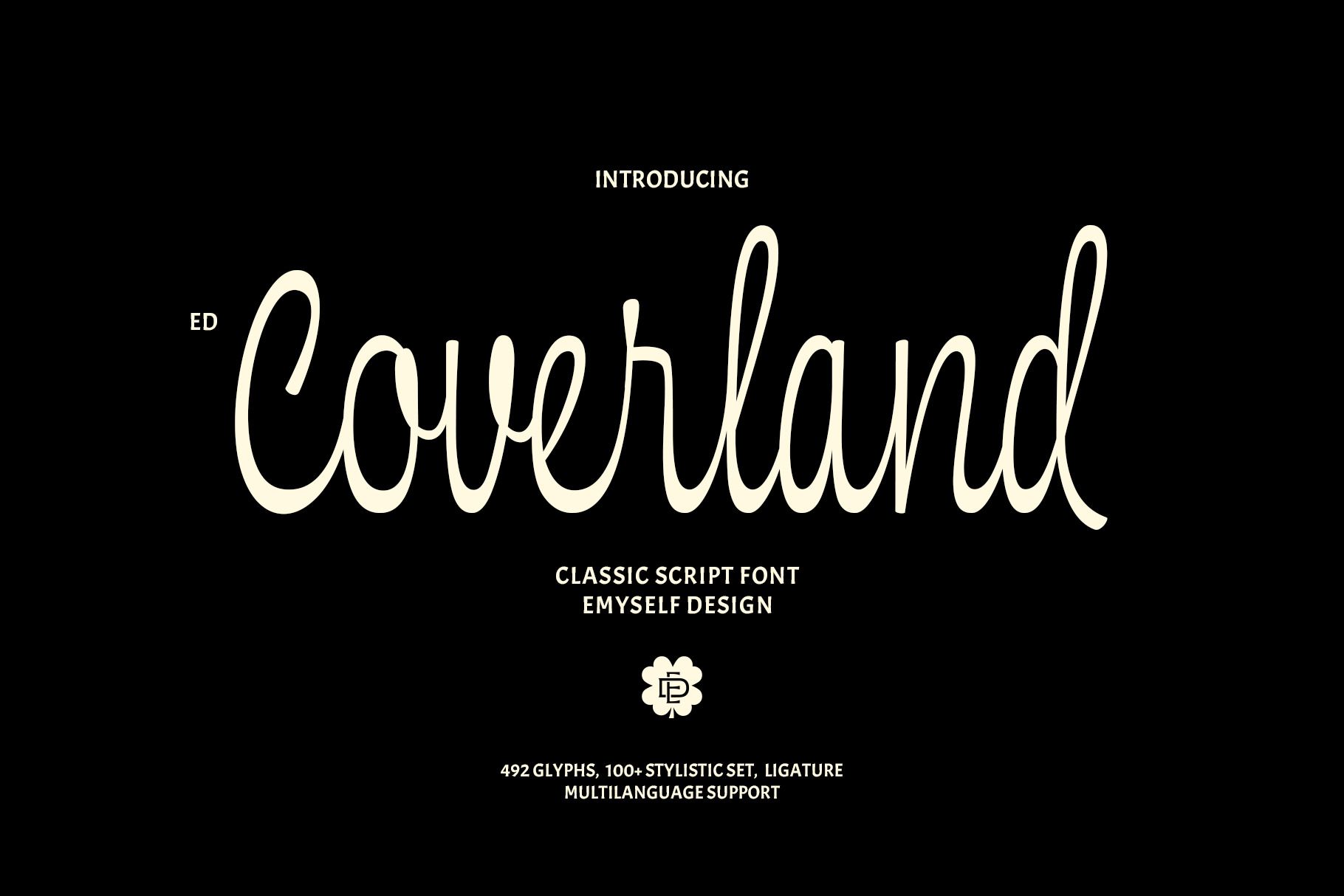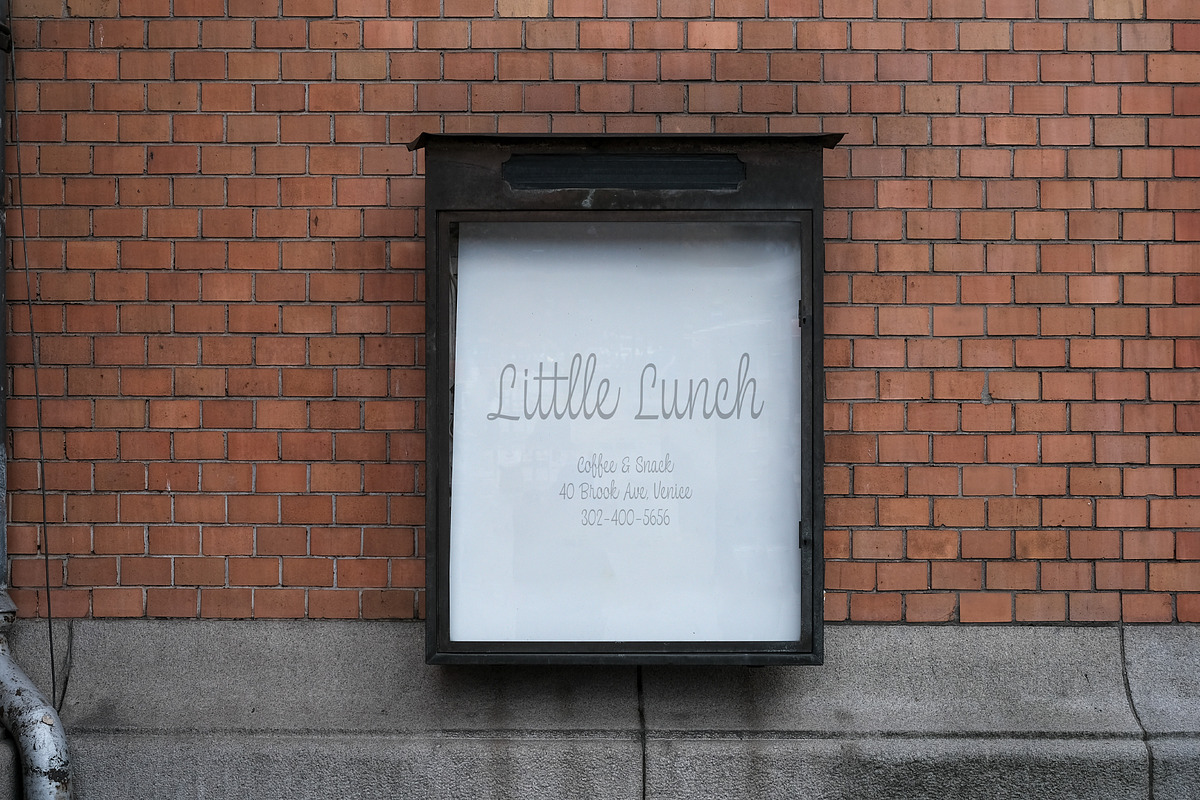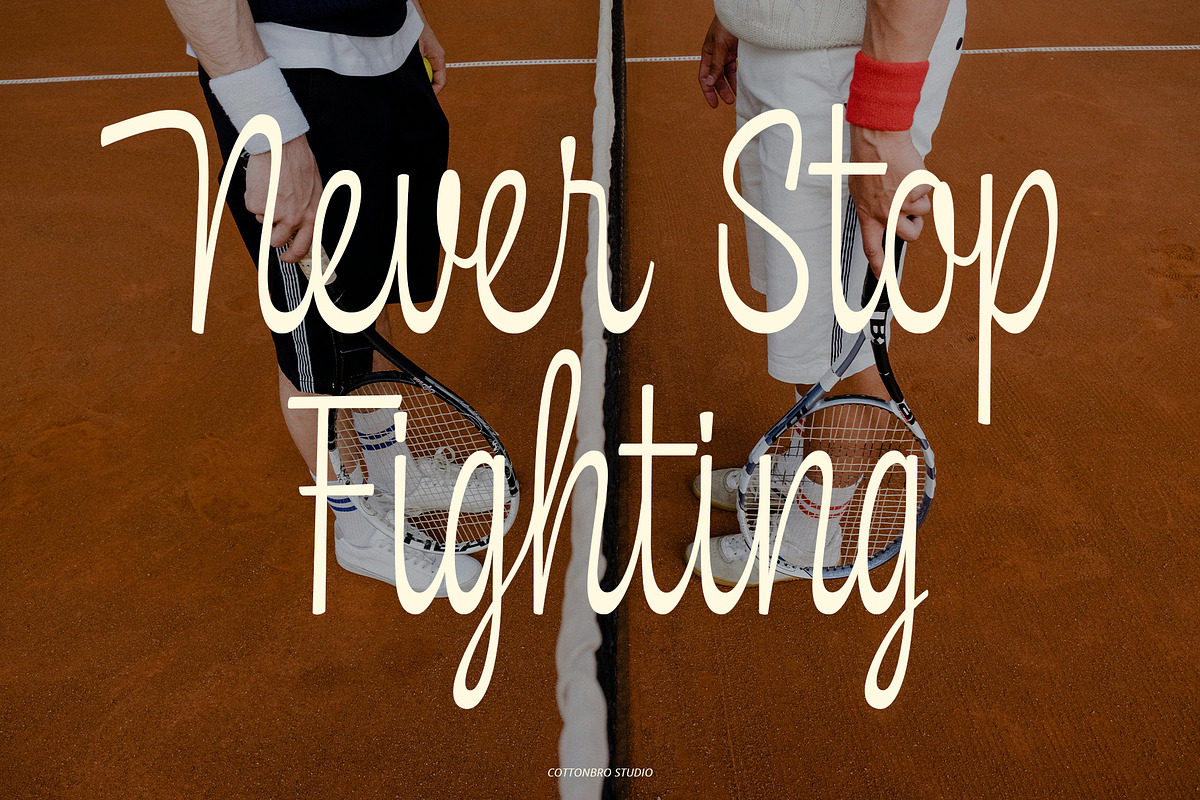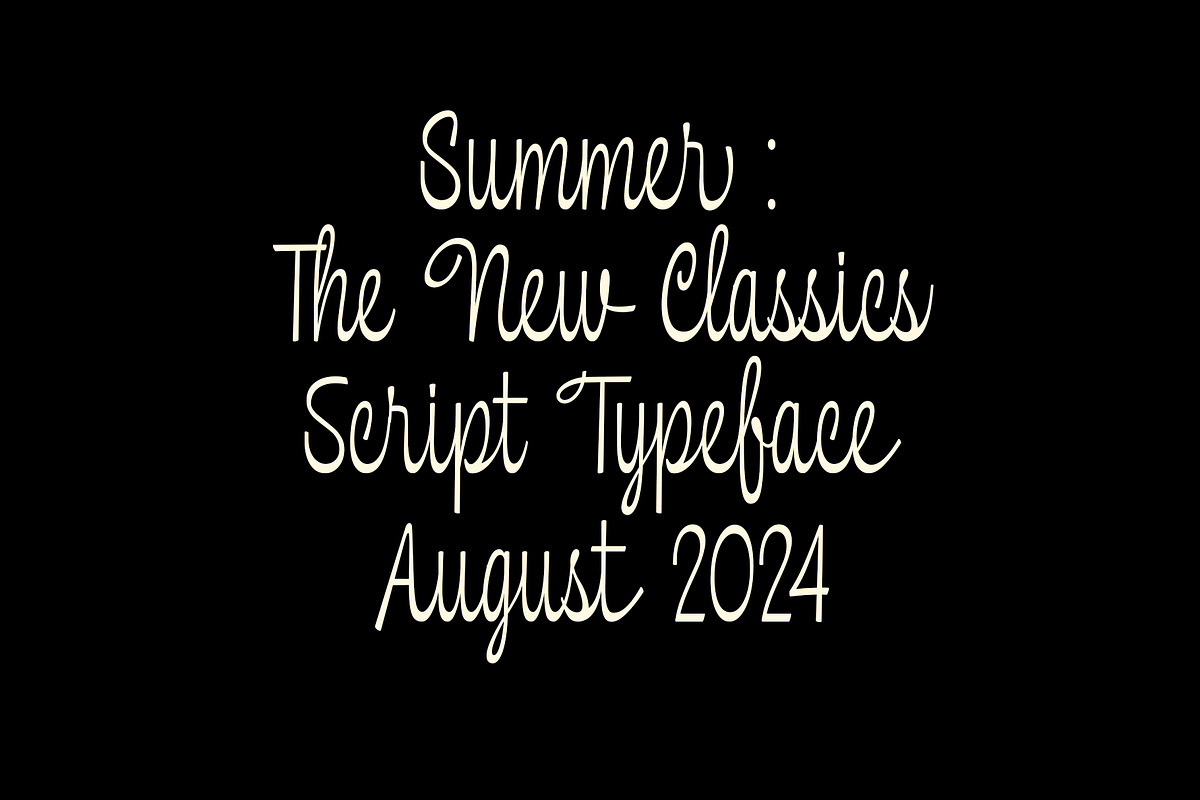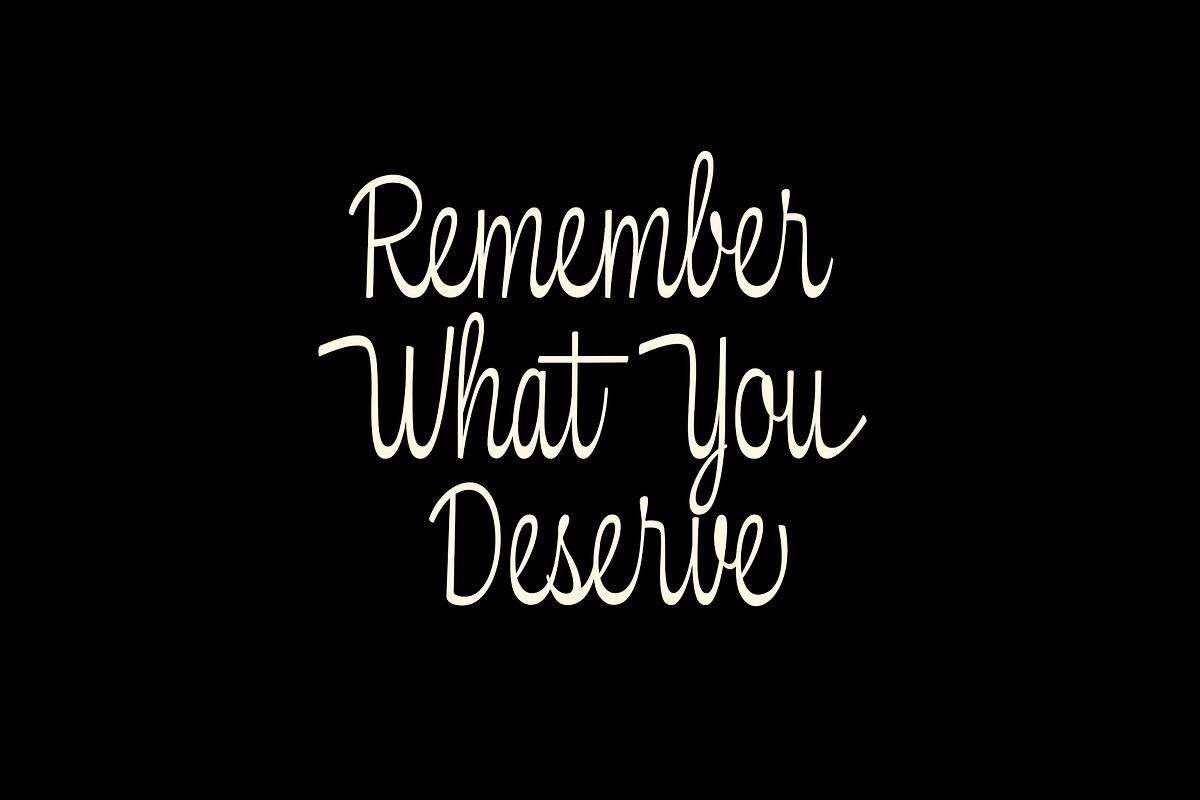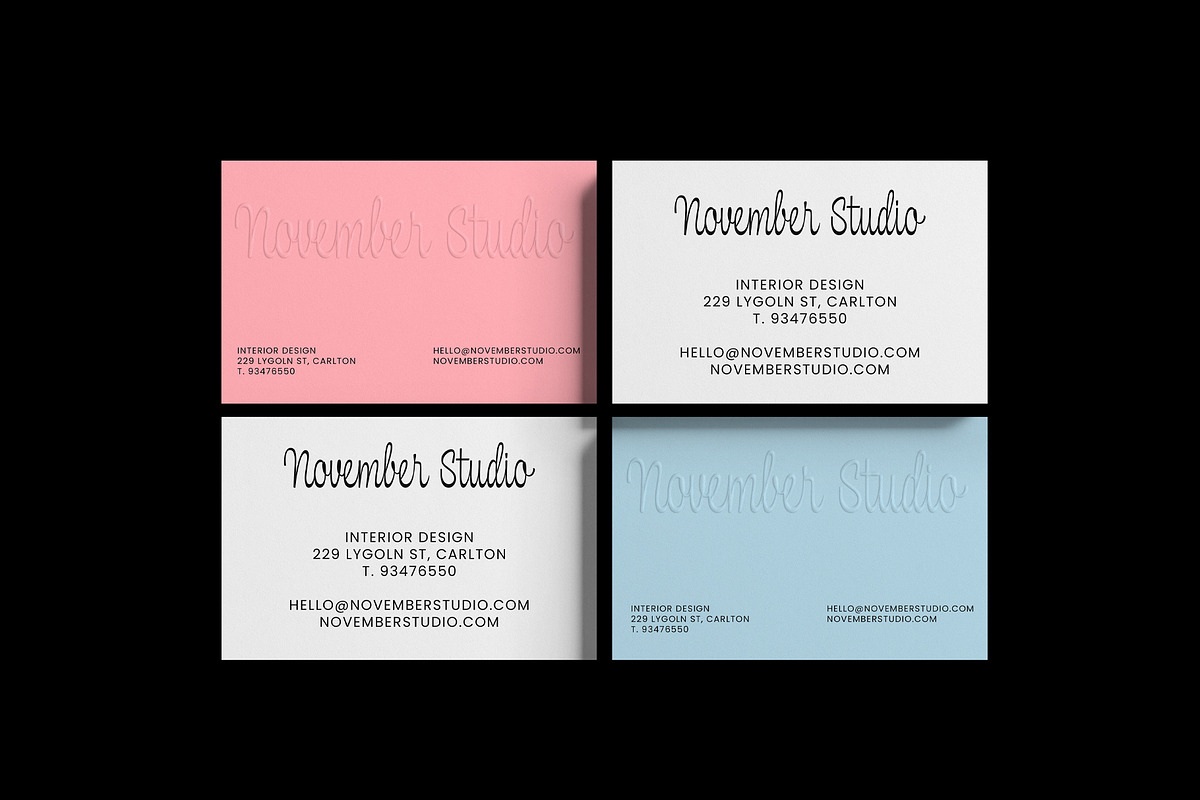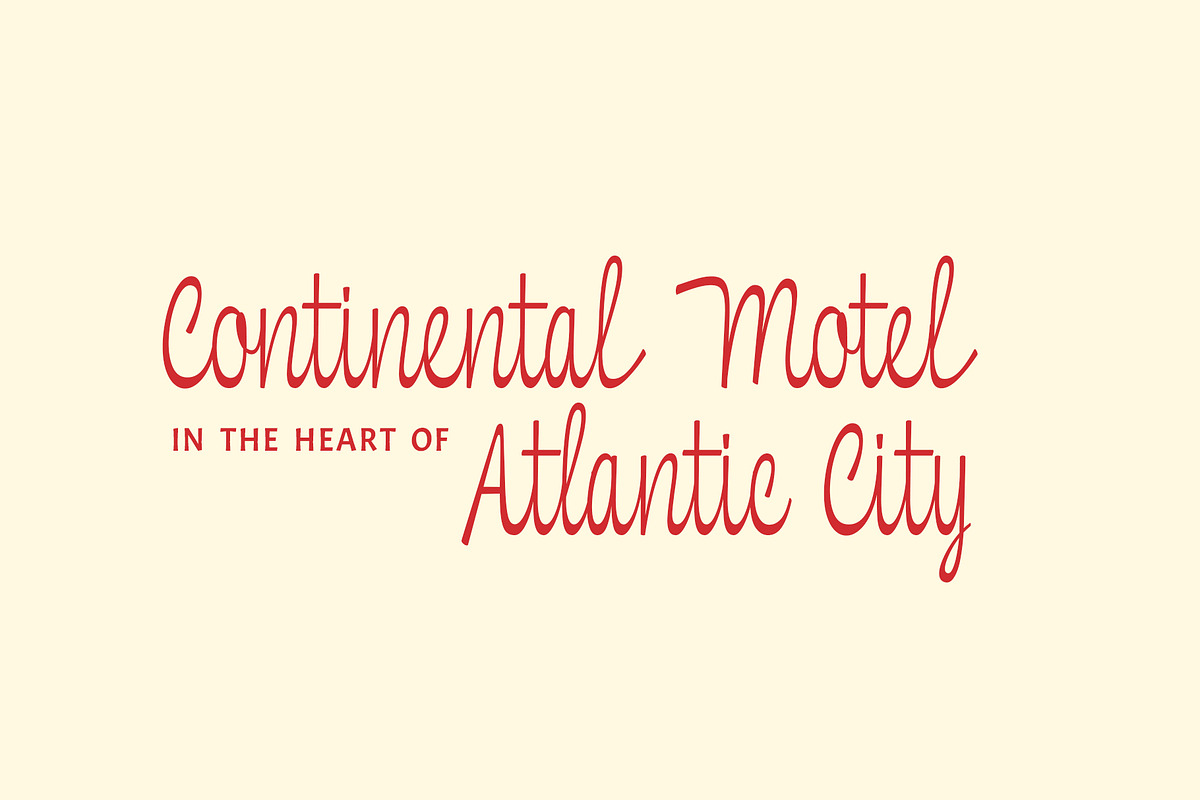
ED Coverland - Classic Script Font
Coverland is a classic and elegant script font inspired by several vintage car logotypes, especially "Chevelle". In its creation, this font is designed to be more modern and clean. but still maintains its classic and elegant impression so that it is easy to combine and use in various types of design needs.
This font is complete with 100+ stylistic sets, ligatures, and also multi-language support which adds to the aesthetic that makes your work more interesting. This font is perfect for your creative projects such as Logotype, printed quotes, invitations, cards, product packaging, headers, Letterhead, Apparel, Web design, Magazine, Book, etc.
Total Glyph: 492
Lowercase
Punctuation and Marks
Symbols
100+ stylistic set & Ligatures